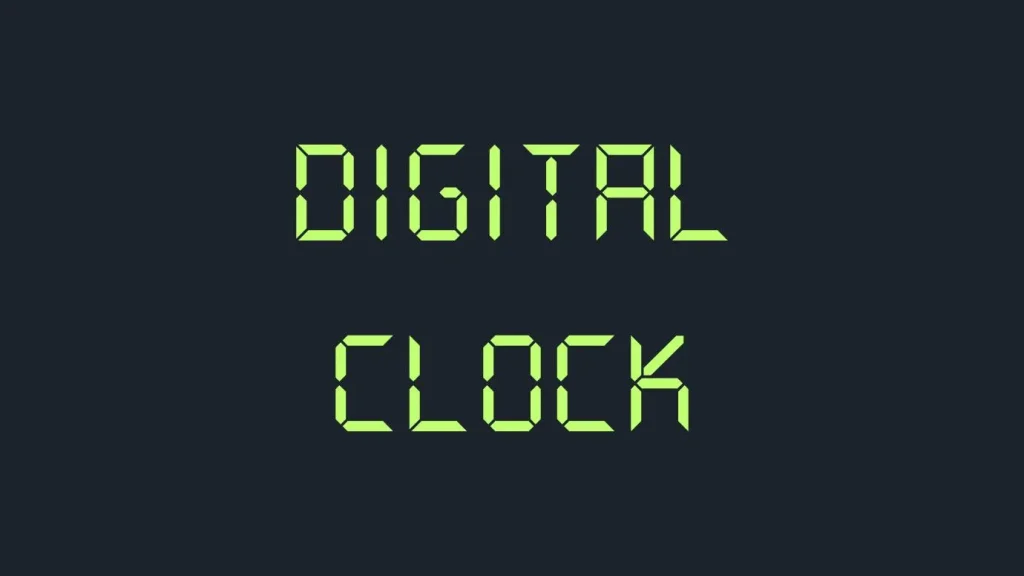
It is ideal for just any project that calls for a bouncy or playful typeface. This typeface is ideal for any project you may be working on, including greetings and postcards.
Additionally, this typeface works well for giving your emails and communications a special style. This typeface has fashionable symbols that will give your project a more polished appearance. Additionally, ideal for marketing and advertising, this typeface.
The font may be utilized for a wide range of projects, including websites, journals, emails, messaging, advertising and promotional materials, invites, birthday cards, and many more. You may use it for any type of creative work, including web design and printing design. Additionally, You can also easily make a very well pair to combine this font with brush king font.
The typeface may be used to create intriguing plans, titles, store names, and emblems. The writing style is also great for branding projects, home furnishing schemes, item packaging, or simply as a fashion media addition on any background image.
Where may the Digital Clock Font be used?
Generate new postcards, branding, and new products with simple and elegant textures. You can also design covers and posters. On it, web development is also possible.
What kind of font is Digital Clock?
The Digital Clock typeface is a fancy style with a practical design. By using it, a design may be unique and stand out.